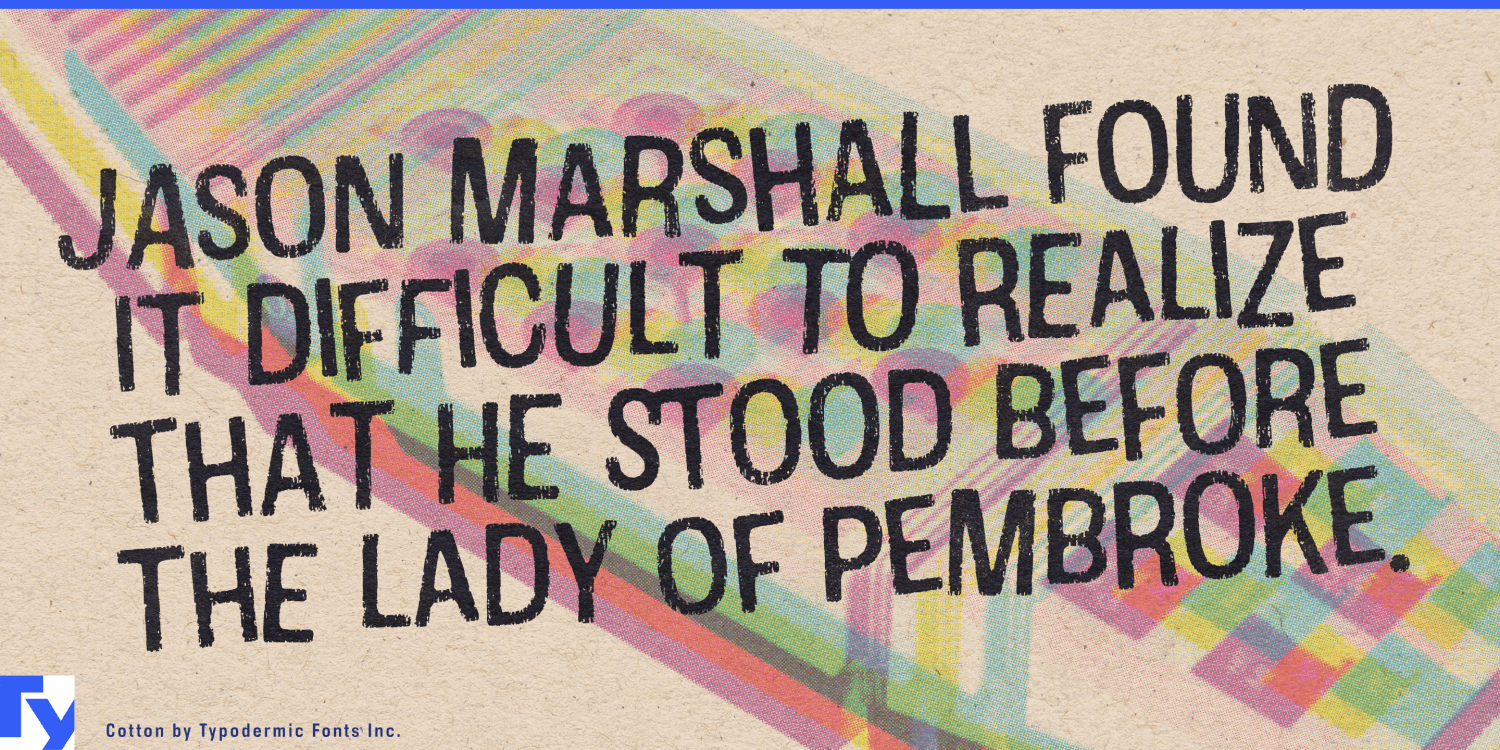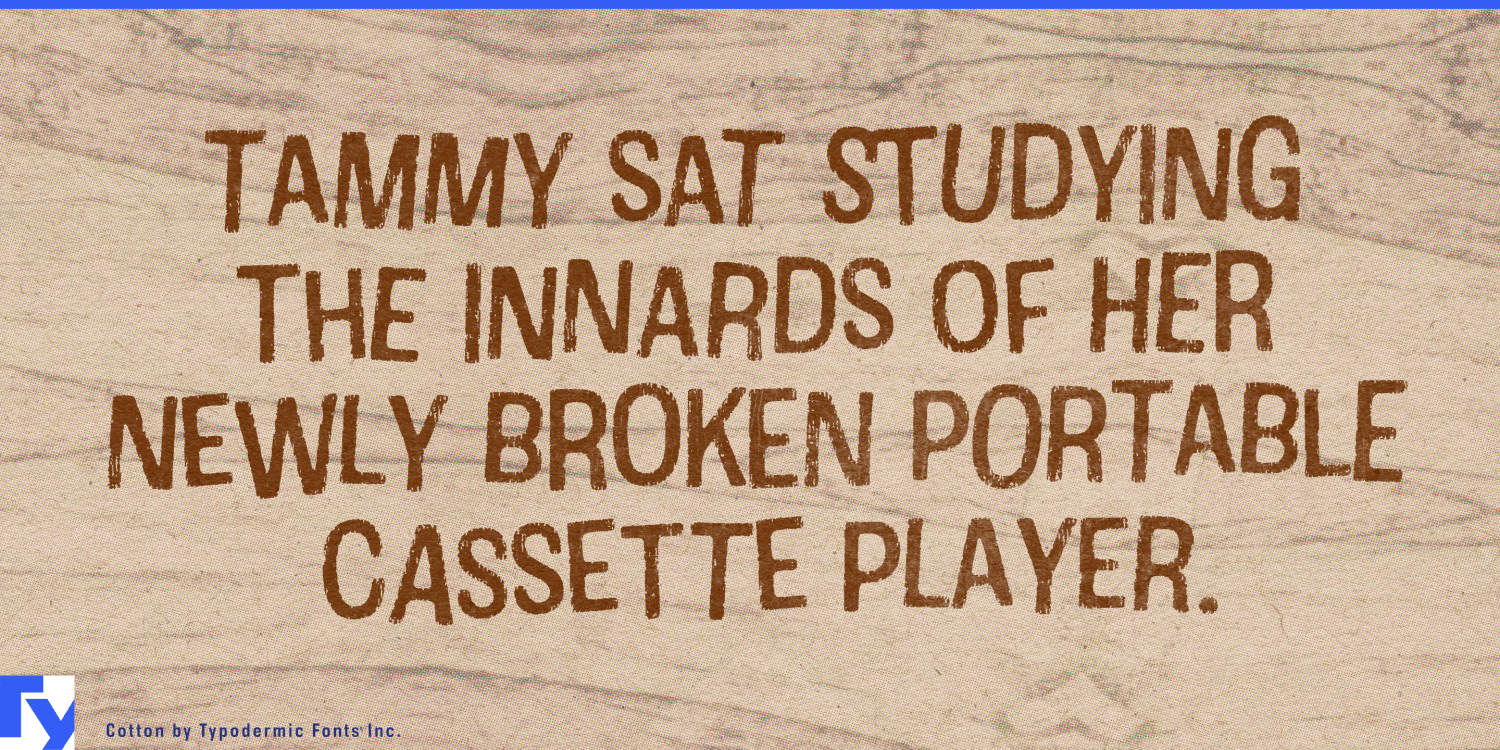
About Cotton
Wrap your designs in the soft, nostalgic embrace of Cotton, a typeface that weaves the casual charm of vintage t-shirts into the fabric of modern typography. This isn’t just a font; it’s a time machine that transports your message back to…